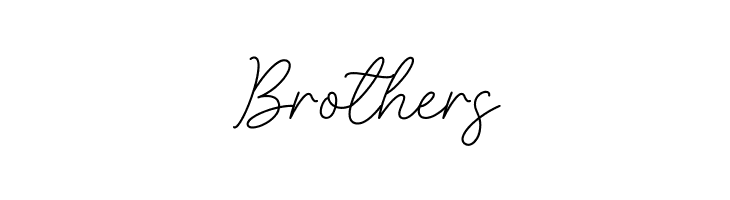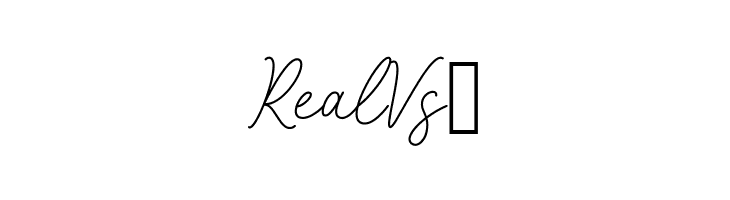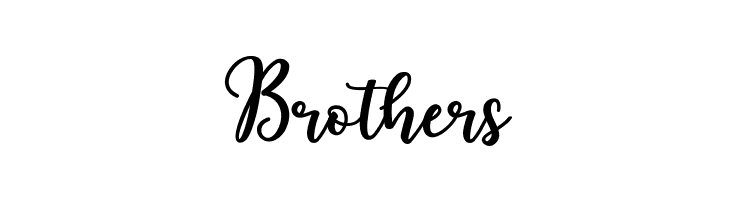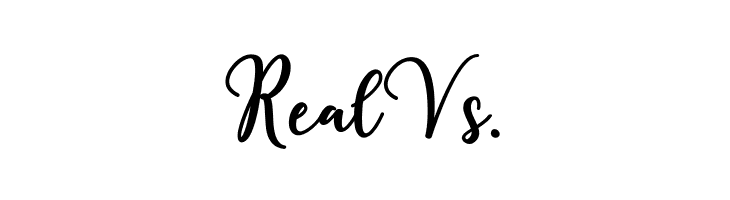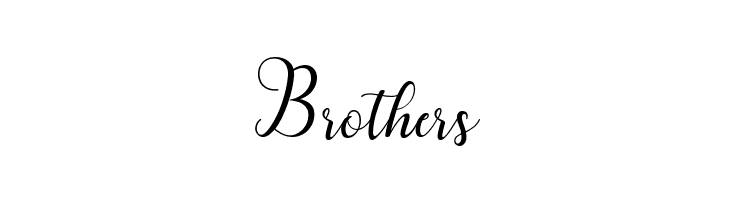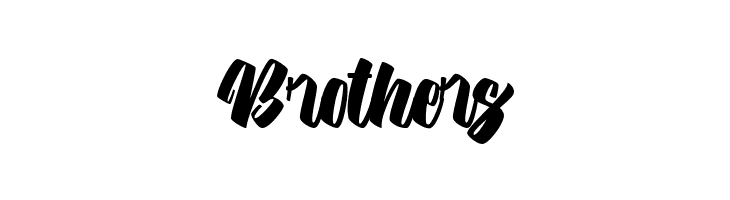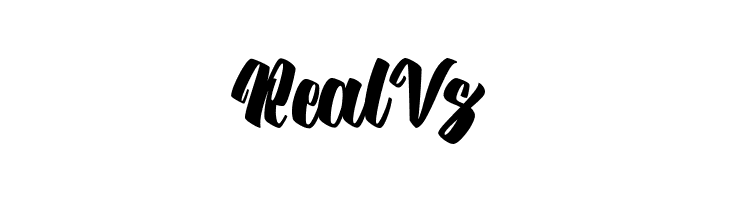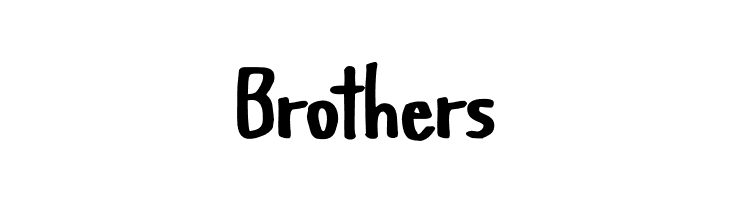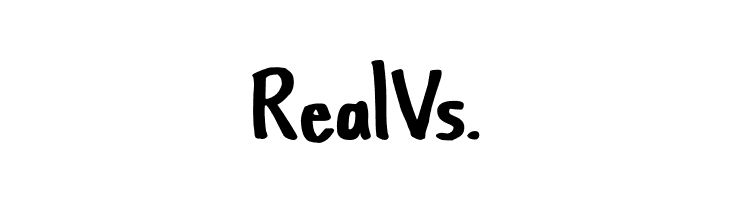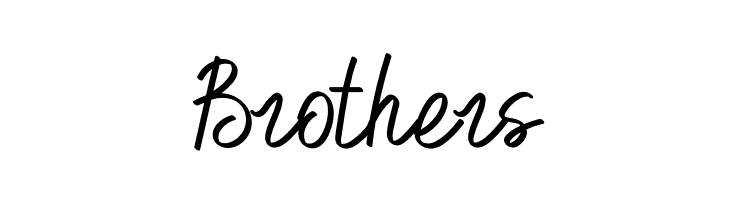
• Hellicopters Brush Script
A dynamic, brush-style script font with fluid, expressive strokes.
• hellifademo
An elegant script font with flowing lines and decorative swirls.
• Hello Anissta Script
A flowing, cursive script font with elegant curves and a hand-drawn look.
• Hello August Hand
A bold, handwritten font with a casual and artistic style.
• Hello Baby Karl Script
A playful and elegant script font with flowing, cursive letters.
• Hello Dina Script
A playful, casual font blending script and sans-serif styles.
• Hello Farmhouse Script
A charming script font with flowing, connected letters and elegant flourishes.
• Hello Graduation Script
A graceful, handwritten script with thin lines and flowing forms.
• Hello Spark Script
A lively and flowing script font with elegant, interconnected letters.
• Hello there
• HelloBrideScript-Regular
An elegant and sophisticated script font with flowing, graceful curves.
• HellomamaScript
An elegant and fluid script font with graceful curves and a dynamic slant.
• HelloSarrahScript
A graceful script font with fluid, interconnected strokes and a refined aesthetic.
• HelloStockholm-Regular
A bold, brush-style script font with dynamic, flowing strokes.
• Helzapoppin!"